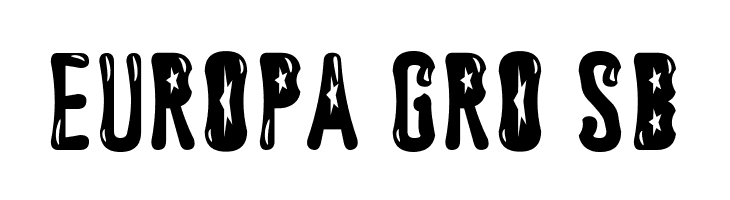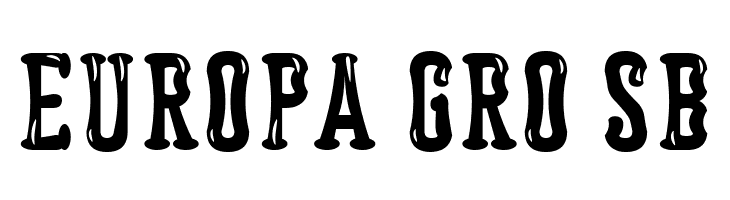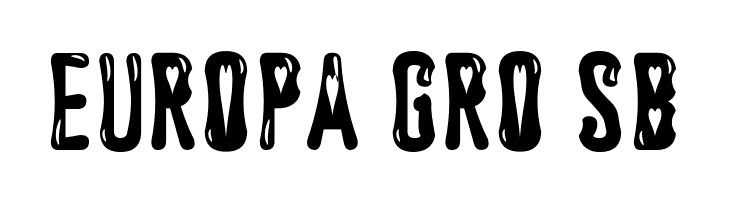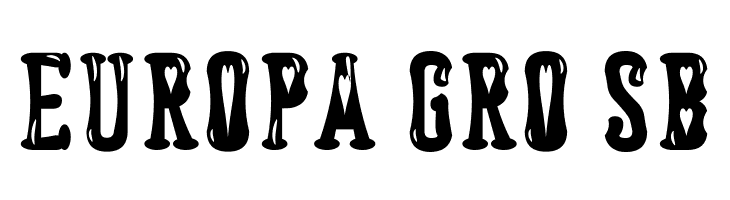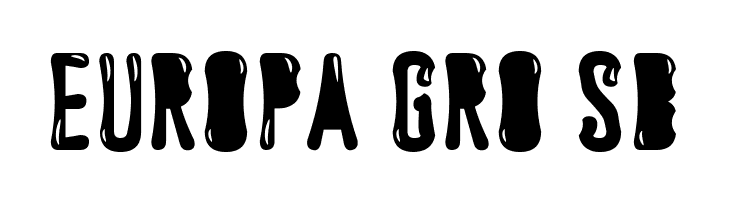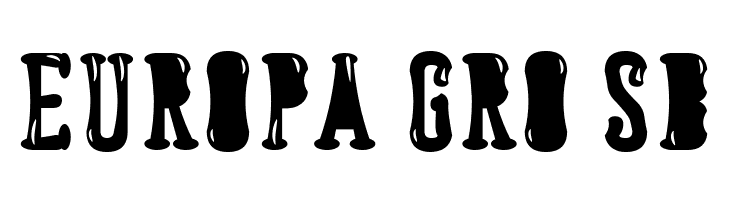
A bold, playful font with a liquid-like, dynamic appearance.
A bold, wavy font with high contrast and a playful, dynamic style.
A bold, decorative font with playful, whimsical characters.
A bold, decorative font with playful serifs and whimsical curves.
A bold, playful font with a liquid-like, dripping appearance.
A bold, decorative font with star-shaped cutouts and a modern, playful style.
A bold, liquid-like font with a dynamic and eye-catching style.
A bold, decorative serif font with high contrast and artistic flair.
A bold, high-contrast serif font with dramatic curves and flares.
A bold, dramatic serif font with artistic flair and exaggerated curves.